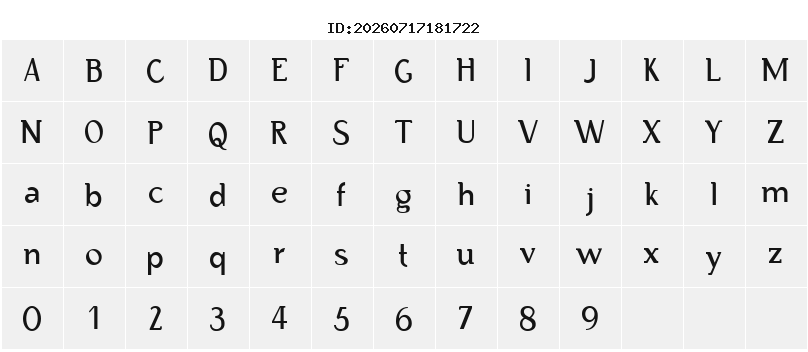
• Font Name: Bertolt Brecht
• Designer: Thiago Matsunaga
About Bertolt Brecht.ttf
Bertolt Brecht.ttf is a modern, elegant sans-serif font designed for ultimate readability and visual harmony. Perfect for branding, headlines, web design, and print materials.